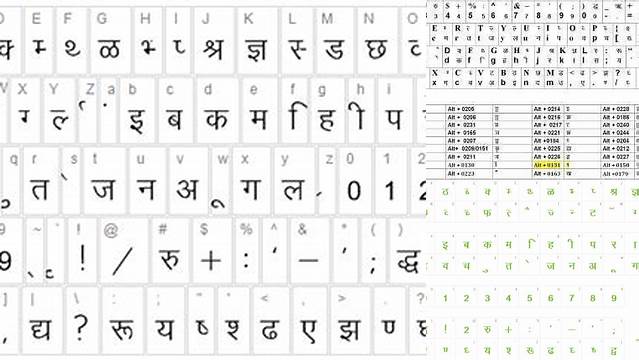
Hey guys! Are you looking to download Kruti Dev Marathi font for your Windows 10 system? You've come to the right place! Kruti Dev is a super popular font, especially for those working with Marathi text, whether it's for typing documents, creating graphics, or designing websites. It's like the go-to font for many, and getting it set up on your computer is easier than you might think. In this comprehensive guide, we'll walk you through everything you need to know about Kruti Dev, where to find it, how to download and install it on Windows 10, and even tackle some common issues you might run into. So, let's dive in and get your system ready to rock that Marathi text!
Why Kruti Dev is a Favorite Font
So, what makes Kruti Dev such a big deal in the world of Marathi typing? Well, there are a bunch of reasons why this font has become a staple for so many users. First off, Kruti Dev is a legacy font, meaning it's been around for quite some time and has become a standard in many government and private sector jobs, especially in Maharashtra. This widespread use means that if you're working with Marathi documents, chances are you'll need to use Kruti Dev at some point.
One of the main reasons for its popularity is its availability and ease of use. Kruti Dev is readily available for free download, making it accessible to a wide range of users. Plus, it's relatively simple to install and use, even if you're not a tech whiz. The font's character mapping is also quite straightforward, which makes typing in Marathi a breeze once you get the hang of it. Think of it as the reliable old friend in the font family β it might not be the flashiest, but it gets the job done every time.
Another factor contributing to Kruti Dev's popularity is its compatibility. It works well with a variety of software, including older versions of Microsoft Office, which is crucial for many users who haven't upgraded to the latest versions. This broad compatibility ensures that you can use Kruti Dev across different platforms and applications without facing major issues. It's like the universal adapter of fonts, fitting into almost any setup you can imagine.
Moreover, many government exams and official documents in Maharashtra require the use of Kruti Dev. If you're preparing for any such exams or need to submit documents in this font, having Kruti Dev installed on your system is a must. It's not just about preference; it's often a requirement. So, in a way, Kruti Dev has become an essential tool for anyone dealing with formal Marathi communication. Itβs like having the right key for the right lock β without it, you might not be able to open certain doors.
In short, Kruti Dev's popularity boils down to its legacy, accessibility, ease of use, compatibility, and the fact that it's often a requirement for official purposes. It's a font that has stood the test of time and continues to be a vital tool for anyone working with Marathi text. So, if you haven't already, downloading and installing Kruti Dev is a smart move for your digital toolkit.
Finding the Right Kruti Dev Font for Your Needs
Alright, so you're convinced you need Kruti Dev. Awesome! But here's the thing: there are a few variations of Kruti Dev out there. It's not just one-size-fits-all. You need to make sure you're grabbing the right one for your specific needs. Think of it like choosing the right tool from a toolbox β you wouldn't use a hammer when you need a screwdriver, right?
First off, you'll often see Kruti Dev 010 and Kruti Dev 020 mentioned. These are the most common versions, and honestly, for most general typing and document creation, either one will work just fine. However, there are some subtle differences. Kruti Dev 010 is generally considered the standard, and it's what you'll likely encounter most often. Kruti Dev 020 is a slight variation, but the average user probably won't notice a huge difference in day-to-day use.
The key thing to consider is compatibility with specific software or requirements. For instance, some older software or specific government guidelines might explicitly ask for Kruti Dev 010. If you're dealing with a particular exam or official document, double-check the instructions to see if a specific version is mentioned. It's always better to be safe than sorry, especially when it comes to official paperwork. This is like making sure you have the right version of a software update β using the wrong one can cause headaches down the line.
Beyond these two main versions, you might also stumble upon other variations or Kruti Dev-inspired fonts. These could be tweaked versions with slight design changes or fonts that mimic the Kruti Dev style. While they might look similar, they might not be 100% compatible with documents that specifically require Kruti Dev. Using these can be risky if you need to ensure your documents are correctly formatted. It's akin to using a generic brand of a product β it might seem similar, but it might not perform the same way.